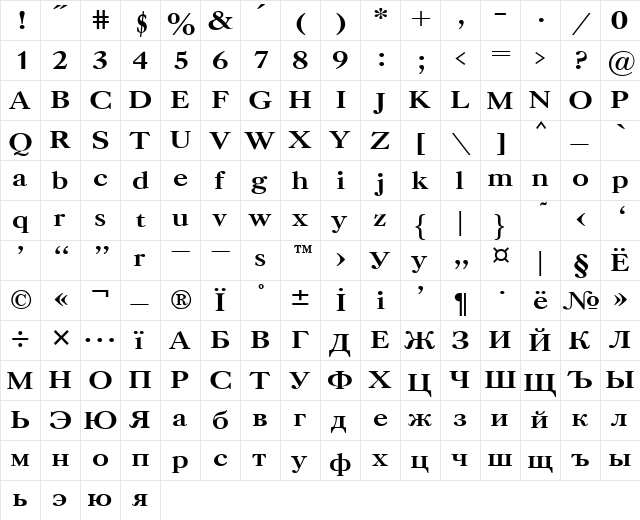
Caslon Bold
Design Context for Caslon Typeface
Caslon offers clean, dependable letterforms without strong stylistic allegiance, making it a practical choice for designers who need flexibility. Its bold stroke weight gives it real presence on the page.